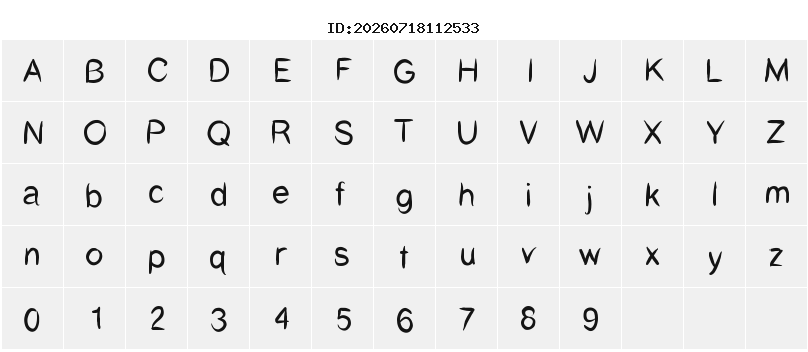
About CatCafe.ttf
CatCafe.ttf is a modern, elegant sans-serif font designed for ultimate readability and visual harmony. Perfect for branding, headlines, web design, and print materials.